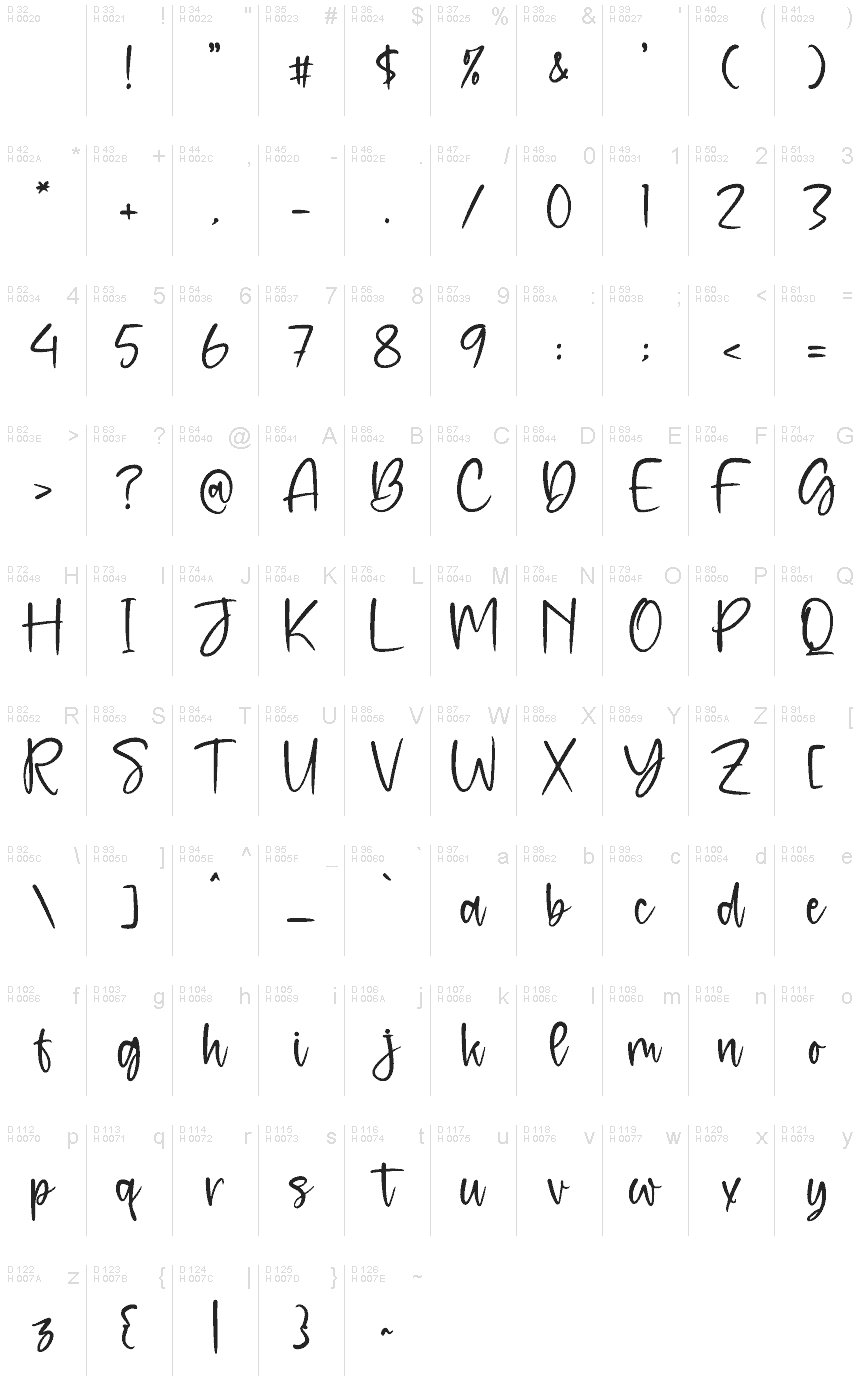
Plam Story
Plam Story font by Letterena Studios is a captivating handwritten font that exudes casual elegance and an expressive flow. With its modern aesthetic and artistic flourish, this font offers a balance of sophistication and charm. Its fluid strokes and natural rhythm make it visually engaging, perfect for those who appreciate subtle yet impactful design.
Use this free handwritten font in logos, packaging designs, printed quotes, magazine covers and headings. Other purposes can comprise book titles, posters, invitation cards with calligraphic writing imitating the real handwriting style as well as stylish greeting cards.